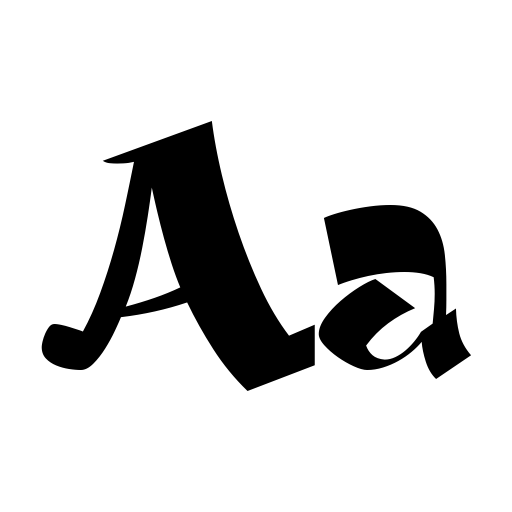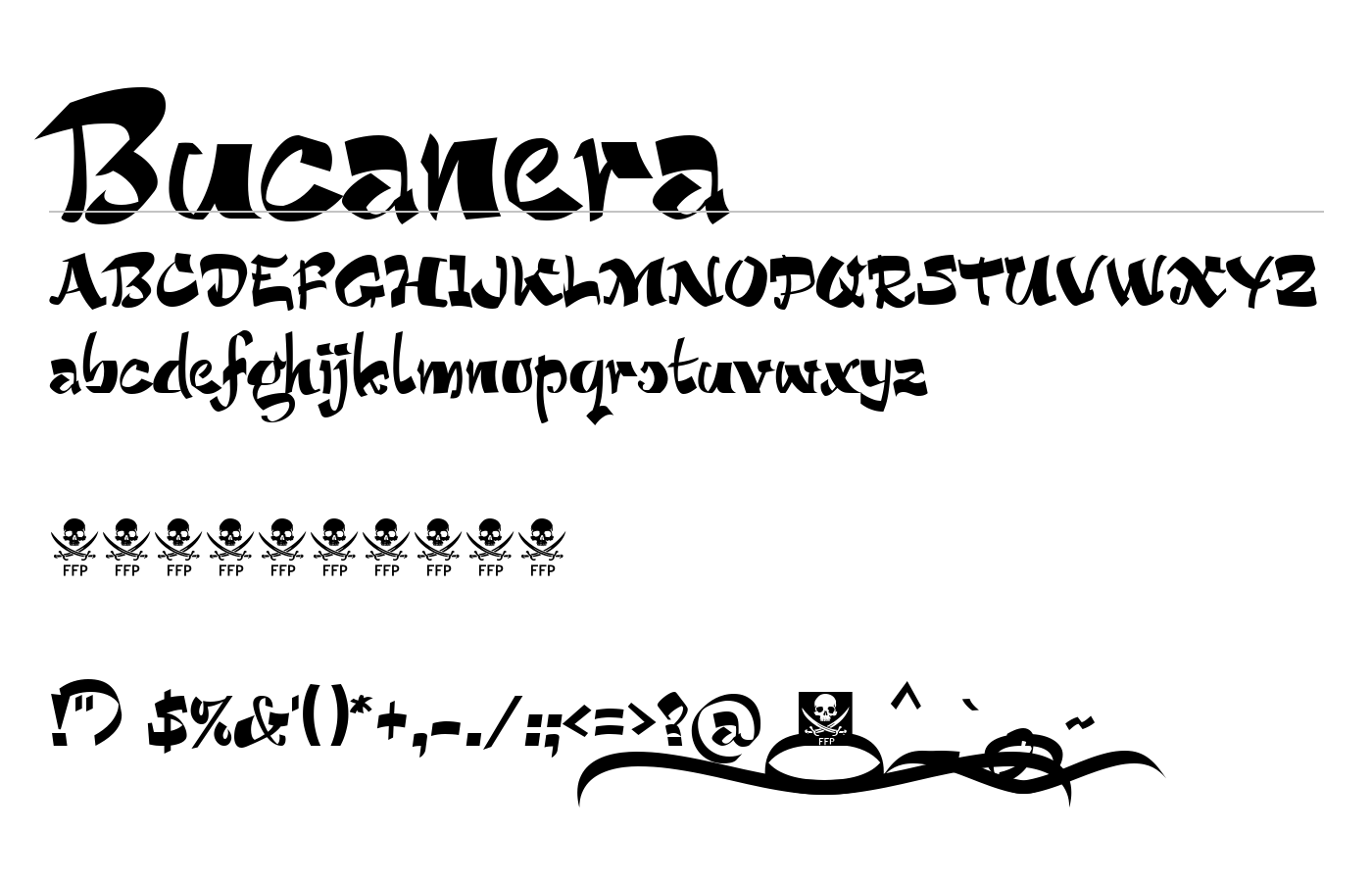
Bucanera is a bold, decorative serif font with a distinctive pirate-inspired style, featuring sharp, angular strokes and unique, playful letterforms that evoke a swashbuckling spirit. Its dramatic contrast and stylized serifs give it a theatrical and adventurous personality, making it perfect for eye-catching headlines, themed posters, and branding that calls for a bold, adventurous flair. Bucanera’s expressive design works best in display settings where its character and charm can shine prominently.
Bucanera Font
About Bucanera Font
| Font family | Bucanera Font |
| Designer | Fernando Haro |